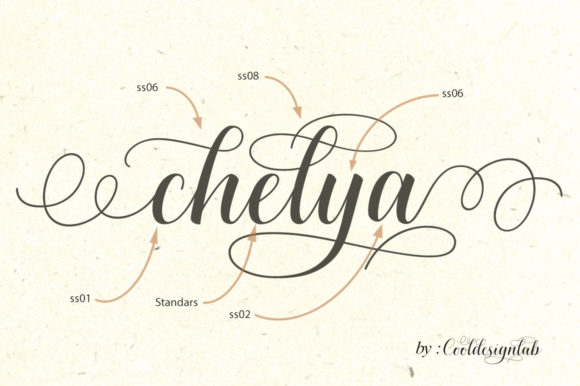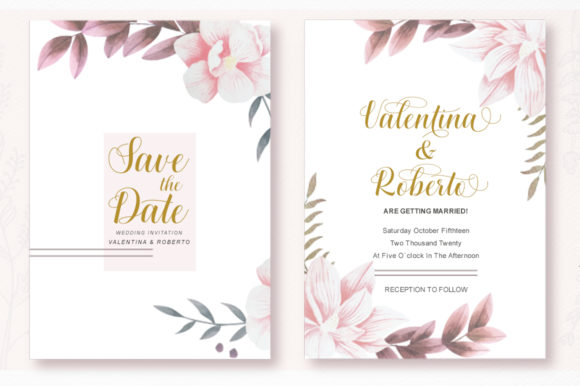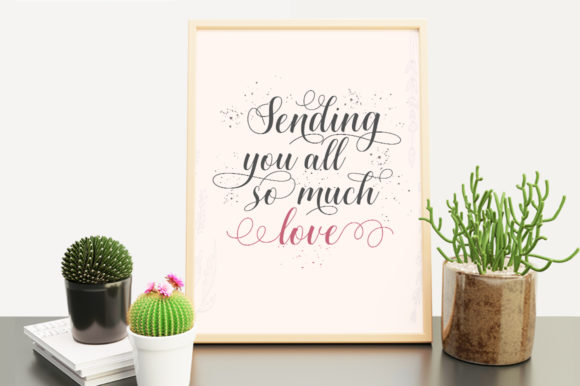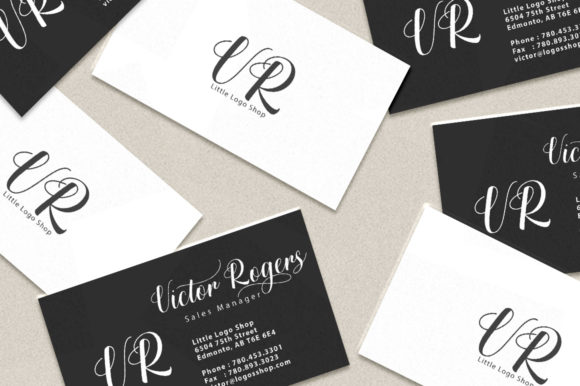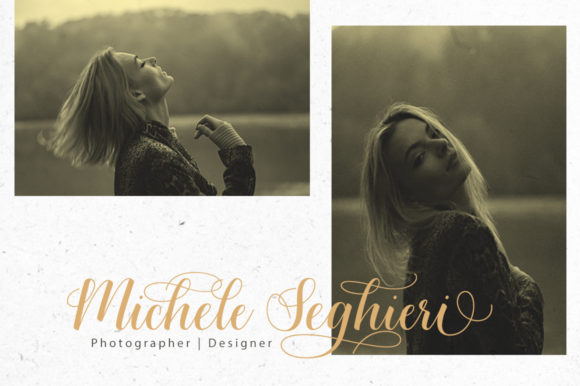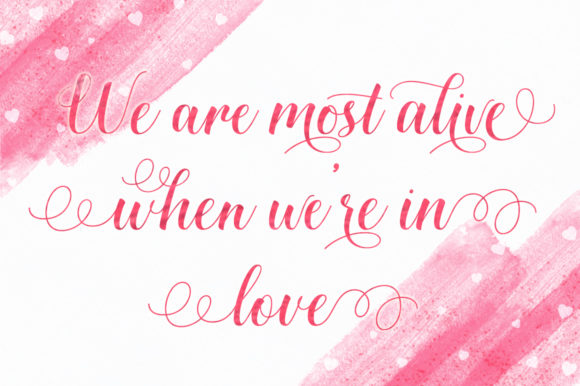
Discover the Elegance of Chelya Font: A Unique Handwritten Style for Your Designs
Are you tired of using the same old fonts for your designs? Look no further! Chelya Font is a game-changer for designers and crafters alike. This beautiful handwritten font boasts an elegant feel that will make your designs stand out from the crowd. With its unique and timeless style, Chelya Font is sure to capture the hearts of design enthusiasts and leave a lasting impression.
What Makes Chelya Font So Special?
Chelya Font is not your average font. Its distinctive style is a perfect blend of elegance and sophistication, making it ideal for a wide range of design projects. Whether you’re creating wedding invitations, branding materials, or social media graphics, Chelya Font is sure to add a touch of class and refinement. The font’s unique characteristics include:
- Handwritten style: Chelya Font is a beautiful handwritten font that mimics the look of elegant handwriting.
- Elegant feel: The font’s flowing lines and curves give it an sophisticated and refined feel.
- Timeless style: Chelya Font’s classic design ensures that it will remain stylish and relevant for years to come.
- PUA encoded: The font is PUA (Private Use Area) encoded, which means you can access all the glyphs and swashes with ease.
The Benefits of Using Chelya Font
So, why should you choose Chelya Font for your designs? Here are just a few benefits of using this amazing font:
- Stand out from the crowd: With Chelya Font, you can create designs that are truly unique and eye-catching.
- Easy to use: The font is PUA encoded, making it easy to access all the glyphs and swashes.
- Versatile: Chelya Font is suitable for a wide range of design projects, from wedding invitations to branding materials.
- High-quality: The font is designed with high-quality and clarity in mind, ensuring that your designs look professional and polished.
How to Use Chelya Font in Your Designs
Using Chelya Font in your designs is easy! Here are a few tips to get you started:
- Pair it with other fonts: Chelya Font pairs well with other fonts, so feel free to experiment with different combinations.
- Use it for headings and titles: The font’s elegant style makes it perfect for headings and titles.
- Add swashes and glyphs: Use the font’s PUA encoded features to add swashes and glyphs to your designs.
- Experiment with colors: Chelya Font looks great in a variety of colors, so don’t be afraid to try out different color schemes.
Who Can Benefit from Using Chelya Font?
Chelya Font is perfect for a wide range of designers and crafters, including:
- Graphic designers: Add a touch of elegance to your designs with Chelya Font.
- Wedding planners: Create beautiful wedding invitations and stationery with Chelya Font.
- Crafters: Use Chelya Font to add a personal touch to your craft projects.
- Branding experts: Create unique and memorable brand identities with Chelya Font.
In conclusion, Chelya Font is a unique and elegant handwritten font that is sure to take your designs to the next level. With its timeless style, PUA encoded features, and high-quality design, Chelya Font is a must-have for any designer or crafter looking to add a touch of sophistication to their work. So why wait? Fall in love with Chelya Font and start creating spectacular designs today!